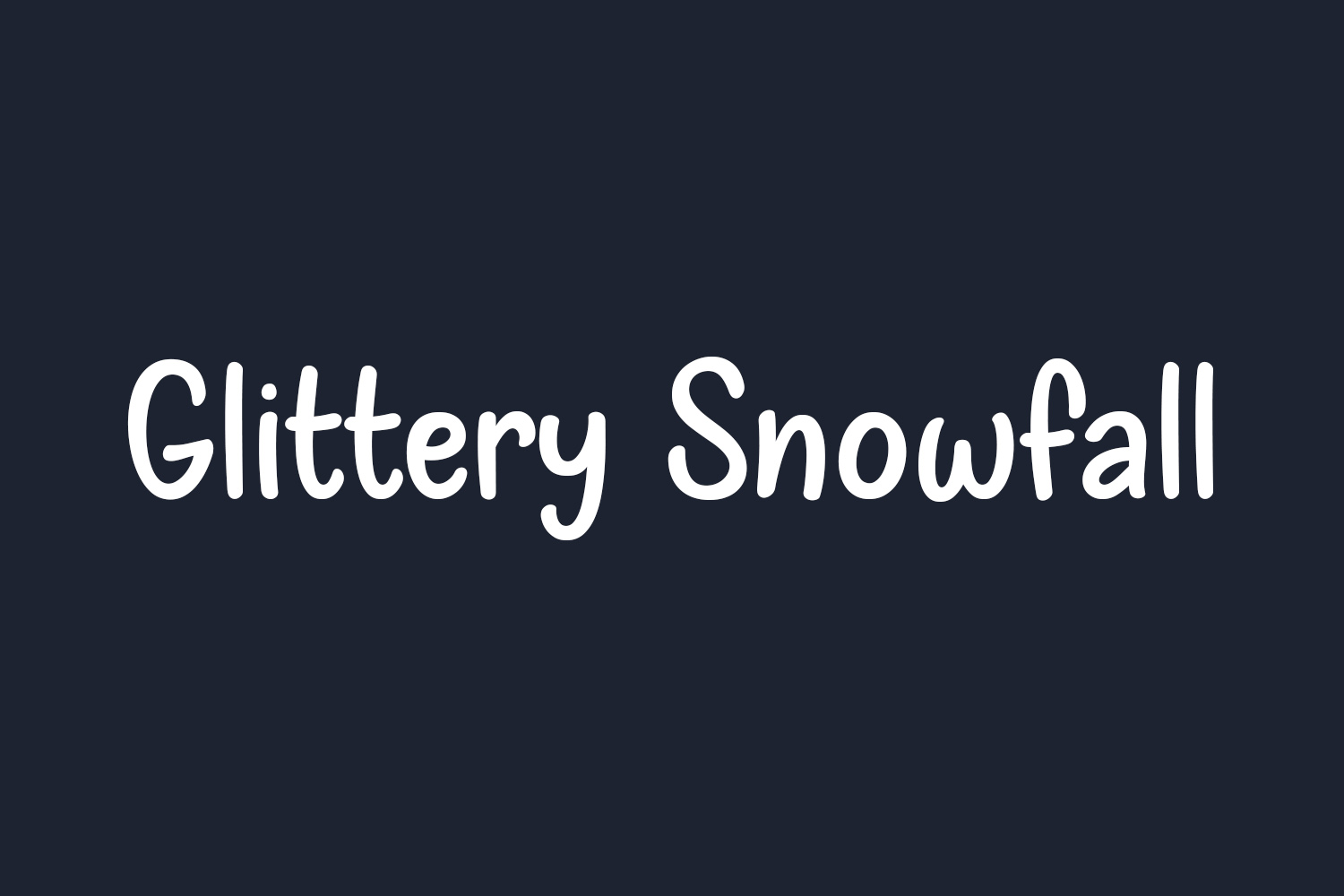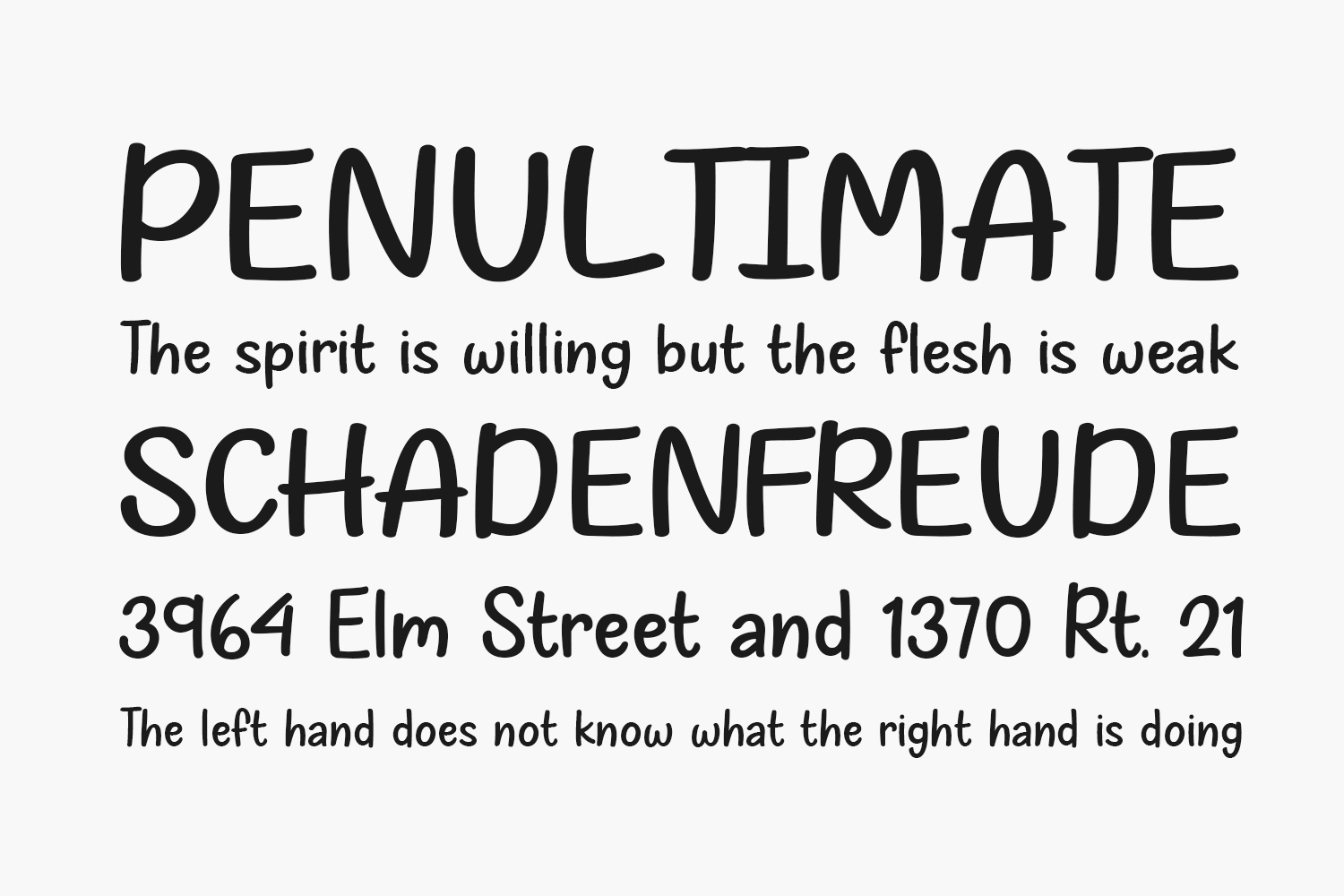
Introducing Glittery Snowfall Free Font, a delightful and whimsical handwritten font crafted to infuse a playful charm into your designs. Ideal for those seeking a straightforward yet quirky font that effortlessly balances readability and visual appeal. This versatile font is thoughtfully created for a range of applications, including branding, social media posts, greeting cards, invitations, and beyond. Glittery Snowfall exudes a festive and lighthearted vibe, making it especially fitting for the holiday season. Its user-friendly nature ensures seamless integration into any design, offering both simplicity and creative flair. Glittery Snowfall Free Font was designed by Misti’s Fonts and is free for personal use only. Please purchase the full version for commercial use.